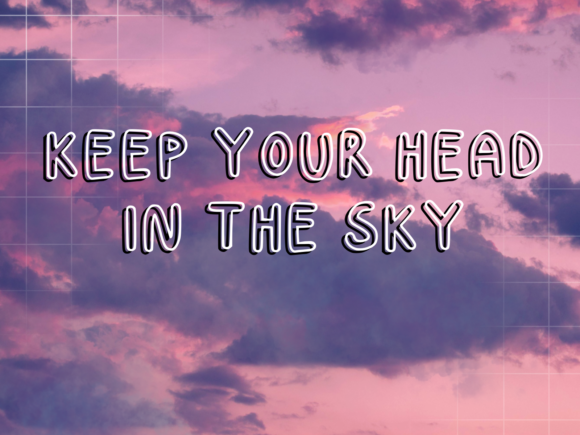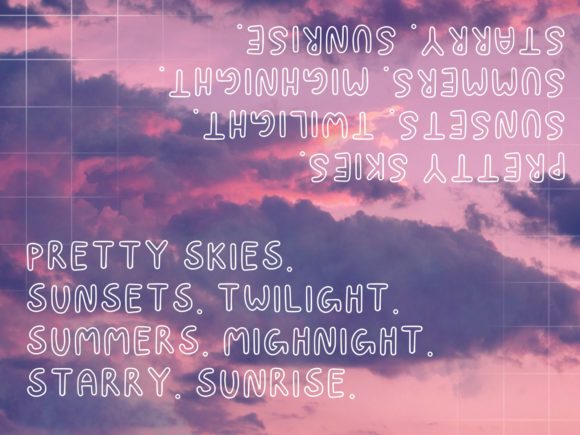
Introduction to Heads Up Two Font
Have you ever been working on a creative project and suddenly, you need that one special touch to make it pop? For designers, it’s a familiar feeling – the need to add a dash of personality to a design and make it truly unforgettable. And that’s where the Heads Up Two Font comes in – a timeless, handwritten font that’s sure to add a fun and playful twist to your designs.
As a design resource, the Heads Up Two Font is a valuable addition to any designer’s toolkit. With its bubble effect, it’s perfect for creating eye-catching graphics, social media posts, and more. And the best part? It’s available for a free download, so you can start using it in your next creative project right away. Whether you’re looking for a high-quality font to add some personality to your designs or just want to try out a new look, the Heads Up Two Font is definitely worth checking out.
Key Features of Heads Up Two Font
- High-quality, unique design for creative projects with a modern twist
- Comes with a transparent background, making it easy to use in various design applications
- Font size: 1,000 glyphs, ensuring comprehensive language support and versatility
- Resolution: Optimized for high-resolution displays, ensuring crisp and clear text rendering
- Perfect for use in digital design, advertising, and editorial projects, where a distinctive and eye-catching font is required
Honest Review: Heads Up Two Font
As a designer, I’m always on the lookout for high-quality resources to elevate my creative projects. Recently, I had the opportunity to try out the Heads Up Two Font and I’m excited to share my honest review.
- ✨ The font’s unique design makes it perfect for creative projects that need a bold, eye-catching look.
- ✨ The transparent background makes it easy to layer the font over images or other design elements.
- ⚠️ The font may not be suitable for more conservative or traditional design projects, as its bold and playful style may not be to everyone’s taste.
Overall, I’m impressed with the Heads Up Two Font and think it’s a great addition to any designer’s toolkit. While it may not be suitable for every project, it’s definitely worth checking out for those looking for a bold and eye-catching font.
Heads Up Two Font is a versatile, high-quality design resource ideal for various creative projects. This free download offers a unique and modern style, perfect for making a statement in your design.
Getting the Most Out of Heads Up Two Font
For the best results, use Heads Up Two Font with a transparent background to create a clean and modern look. Experiment with different font sizes and styles to add depth and visual interest to your design.
Heads Up Two Font is perfect for:
- Presentation titles and headings
- Document titles and headings
- Logo design and branding